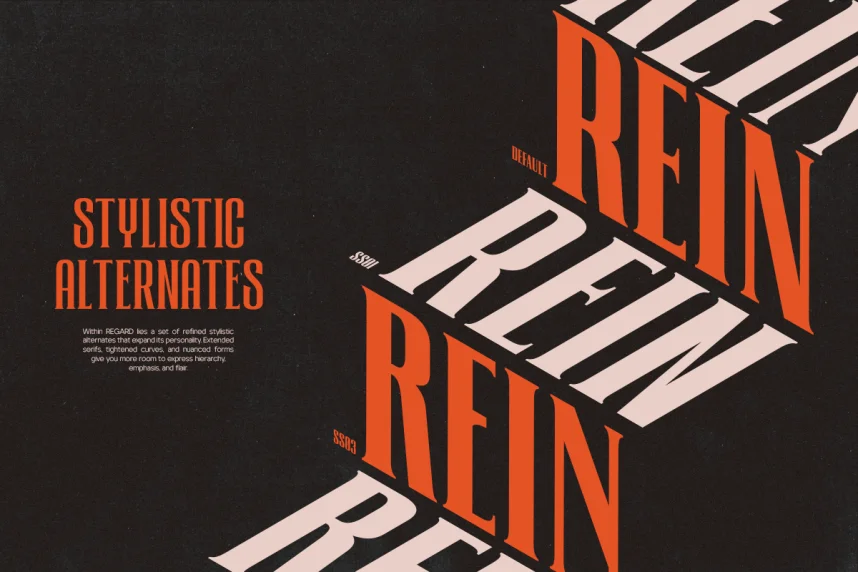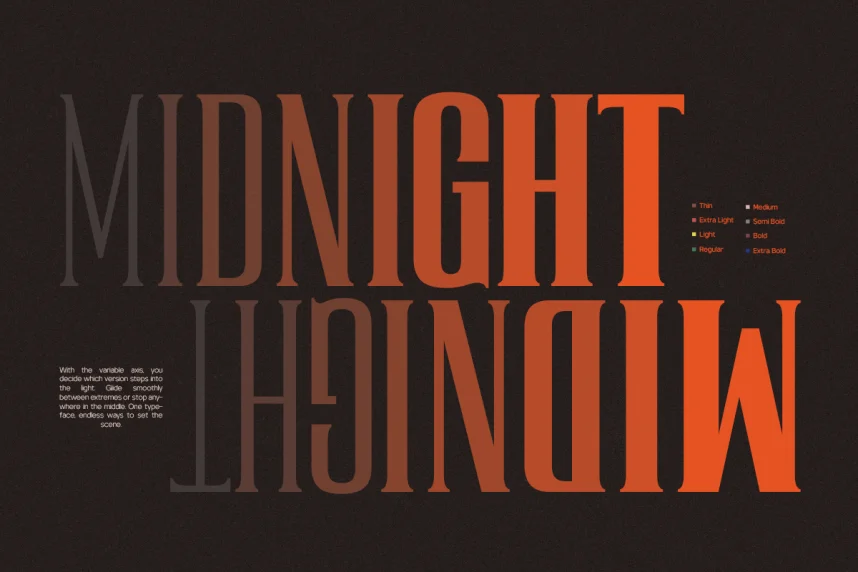
TRT Regard Font Family addresses clarity issues in corporate and institutional communication where consistency is required across many platforms.
This font family is often classified as a sans-serif system font, offering multiple weights and styles. Its letterforms maintain stable proportions and clear counters, supporting readability in documents and interfaces.